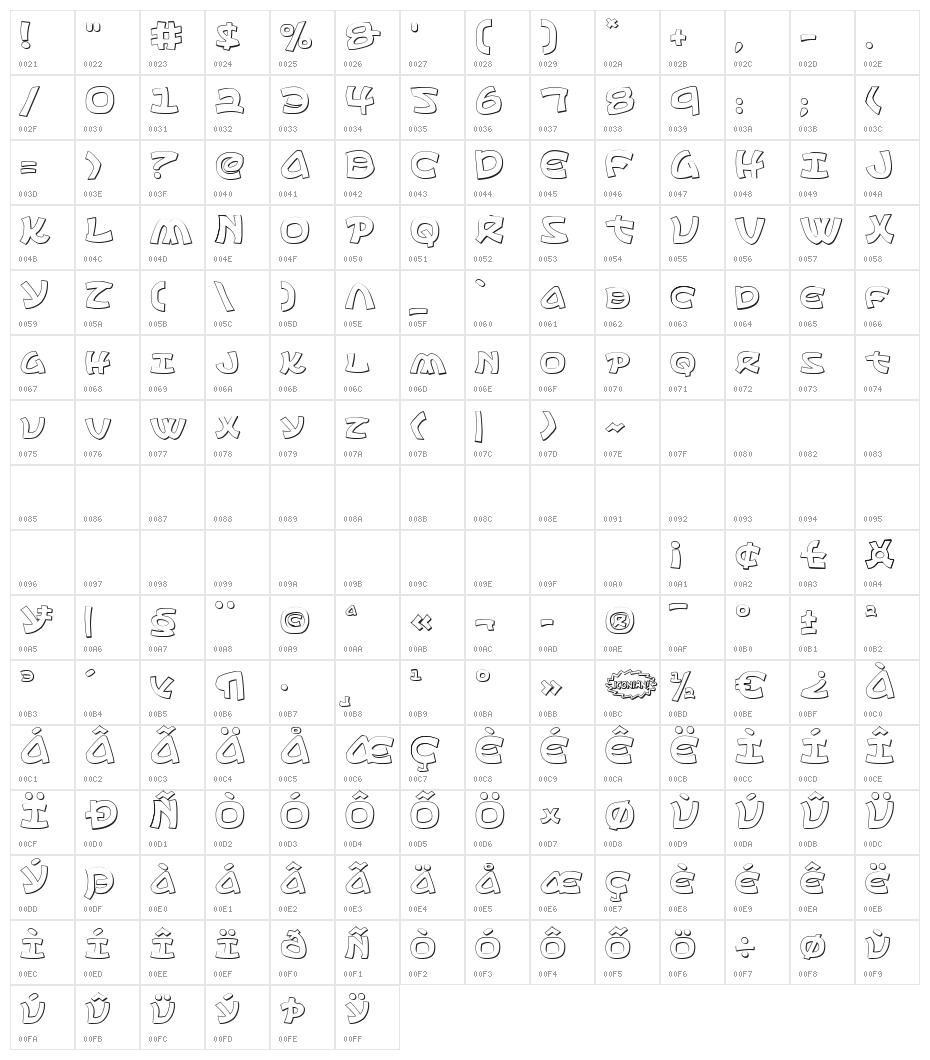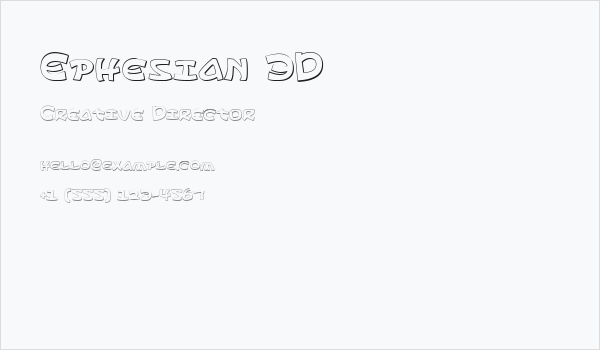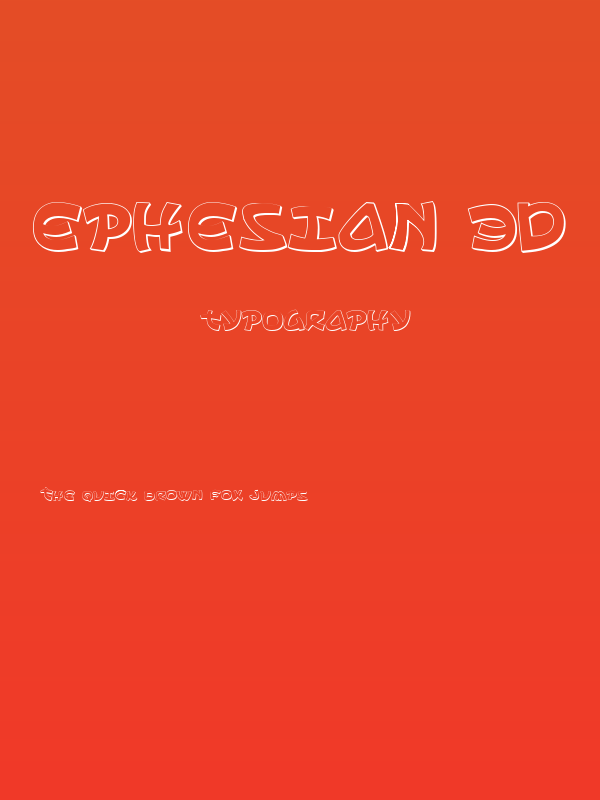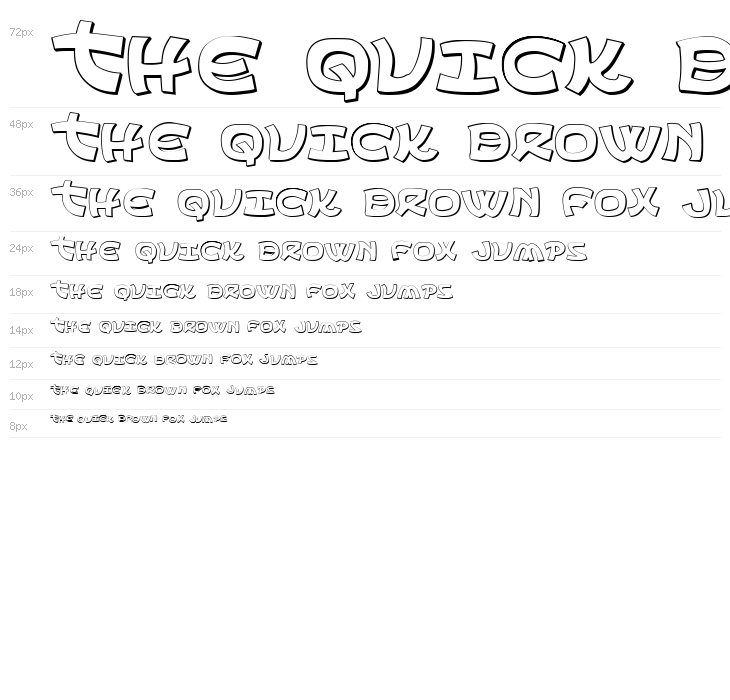
Ephesian 3D Font
Ephesian 3D Description
This font features a playful and bold 3D style, characterized by thick outlines and a cartoonish appearance. The letters have a rounded, bubble-like form, giving them a friendly and approachable look. The uppercase and lowercase letters maintain a consistent style, with exaggerated curves and a sense of movement. Numbers and special characters follow the same design principles, ensuring uniformity across all glyphs. The font's unique 3D effect is achieved through the use of shadowing and layering, adding depth and dimension. This makes it particularly eye-catching and suitable for creative projects.
| Overall Style | Playful, Cartoonish |
| Proposed Projects | Ideal for children's books, comic strips, playful branding, and eye-catching posters. |